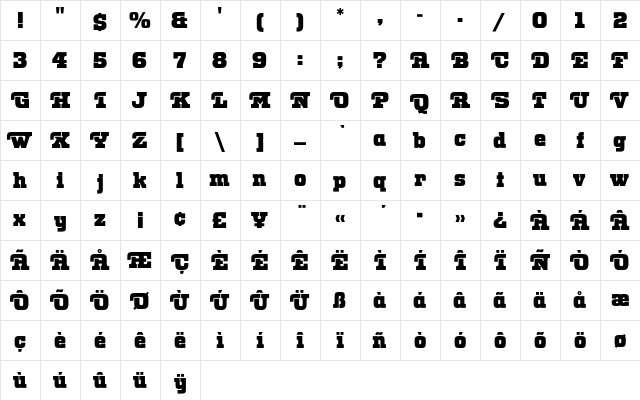
OdinEF Regular Font Preview
OdinEF Regular
Design Context for OdinEF Typeface
OdinEF offers clean, dependable letterforms without strong stylistic allegiance, making it a practical choice for designers who need flexibility.